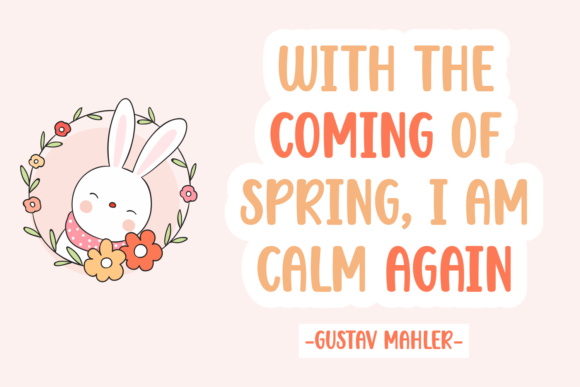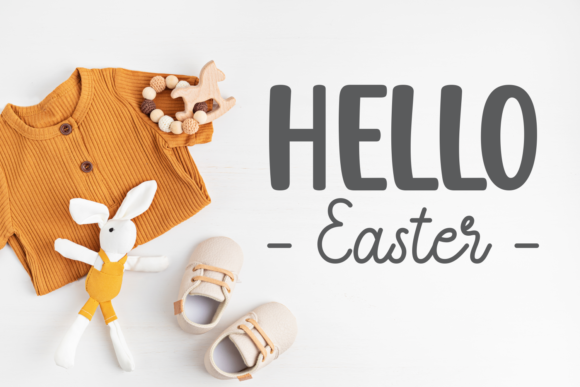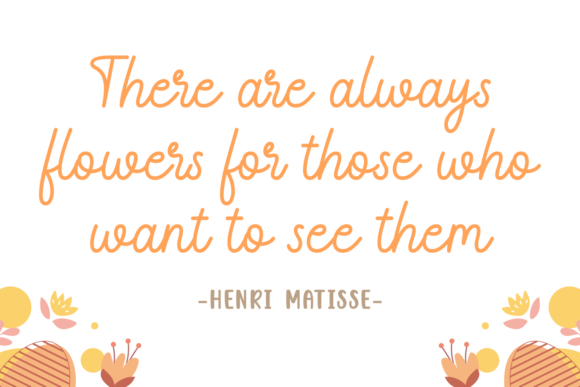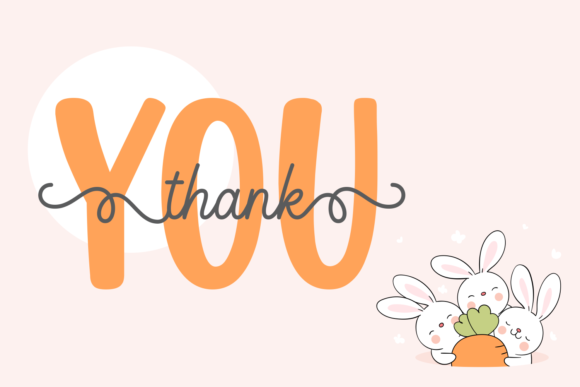
The Perfect Springtime Typography: Cute Easter Bunny Font
As you sit at your desk, sipping your morning coffee, surrounded by colorful Easter decorations and the sweet scent of spring, you can’t help but feel the urge to create something magical. Your imagination runs wild with ideas of fluffy bunnies, blooming flowers, and warm sunshine. It’s moments like these that spark inspiration, and for designers, the right typography can be the key to bringing your vision to life.
Enter the adorable Cute Easter Bunny Font, a delightful duo of script and sans serif fonts that are sure to add a touch of whimsy to your projects. With its PUA encoding, you’ll have access to all the glyphs and swashes, allowing you to create truly unique and eye-catching designs. Whether you’re working on Easter-themed projects or simply looking to add a playful touch to your work, the Cute Easter Bunny Font is a valuable addition to any designer’s toolkit.
Cute Easter Bunny Font Key Features
- Unique Characteristics: Whimsical, hand-drawn design with Easter-themed elements and cute bunny illustrations
- Font Style: Casual, playful, and cursive
Cute Easter Bunny Font Review
I recently had the chance to work with the “Cute Easter Bunny Font” and I must say it’s a delightful addition to any spring-themed project. ✨ The font’s playful and whimsical feel instantly conveys a sense of Easter joy, making it perfect for children’s books, party invitations, and other related designs.
- The font’s unique design and custom illustrations add a charming touch to any project.
- The variety of font styles and sizes provides ample opportunities for creative expression.
- The font is easily readable, even in smaller sizes, making it suitable for a range of applications.
However, I do have a few concerns that might limit its overall effectiveness: ⚠️ The font’s Easter-themed design might not be suitable for projects outside of spring or Easter celebrations. Additionally, the font’s playful feel might not be the best fit for more serious or professional projects.
Overall, I think the “Cute Easter Bunny Font” is a great choice for designers looking to add a touch of whimsy to their spring-themed projects. While it may have some limitations, its unique design and custom illustrations make it a standout choice for Easter-themed designs.
The Cute Easter Bunny Font is ideal for creating Easter-themed designs, invitations, and graphics. It’s also great for adding a playful touch to party decorations, social media posts, and promotional materials.
Alternatives to Cute Easter Bunny Font
Great Vibes is a whimsical, handwritten font perfect for creating a playful and carefree atmosphere. It’s ideal for use in children’s books, greeting cards, and other designs that require a lighthearted touch.
Compared to Cute Easter Bunny Font, Great Vibes has a more fluid and natural feel, with a wider range of variations and connections between letters. It’s a great choice for designers who want to add a sense of movement and energy to their designs.
Pacifico is a beautiful, elegant script font that exudes a sense of relaxation and sophistication. It’s perfect for use in high-end designs, such as luxury branding and packaging, where a touch of refinement is required.